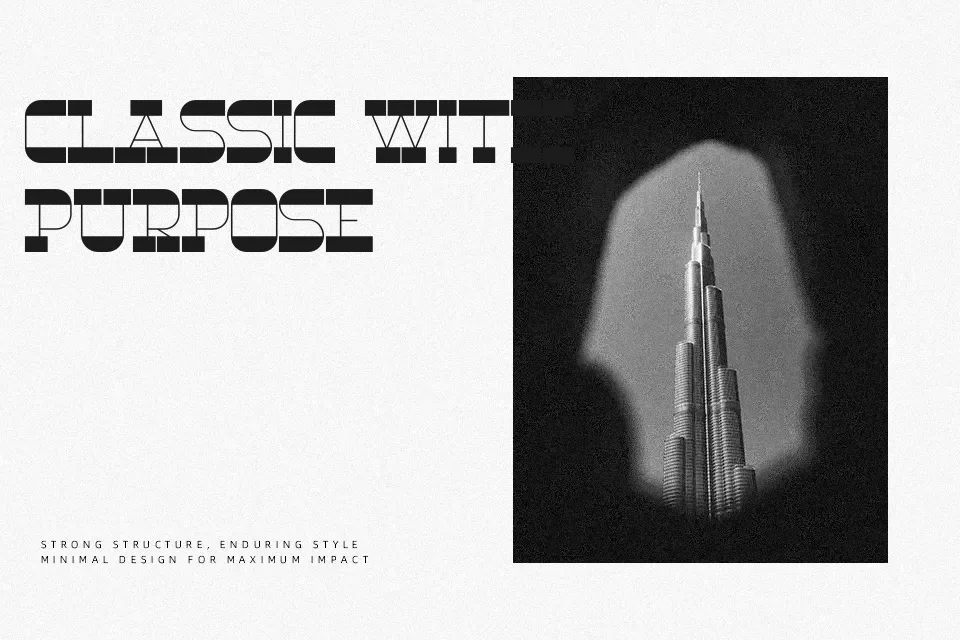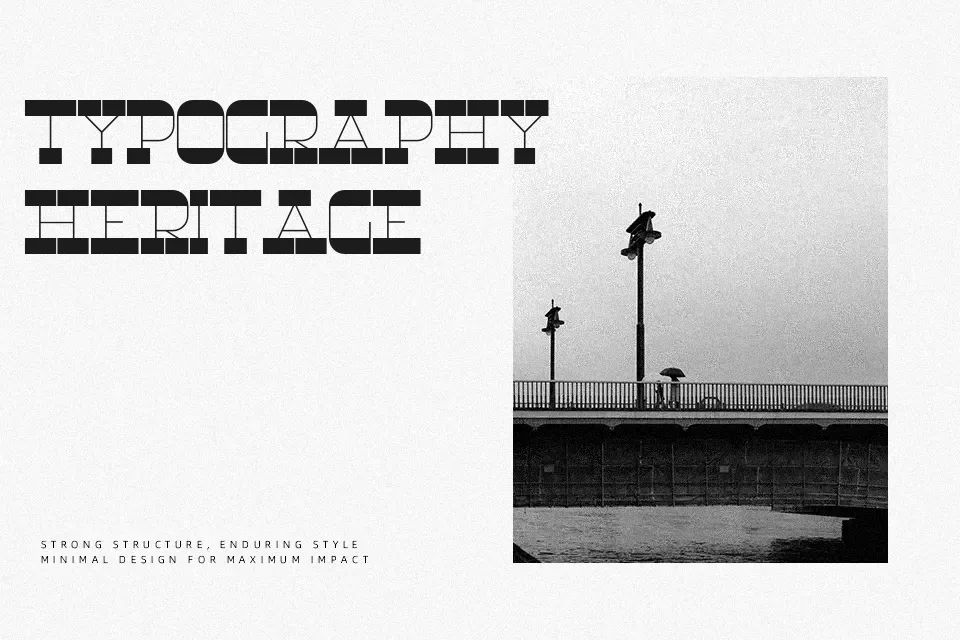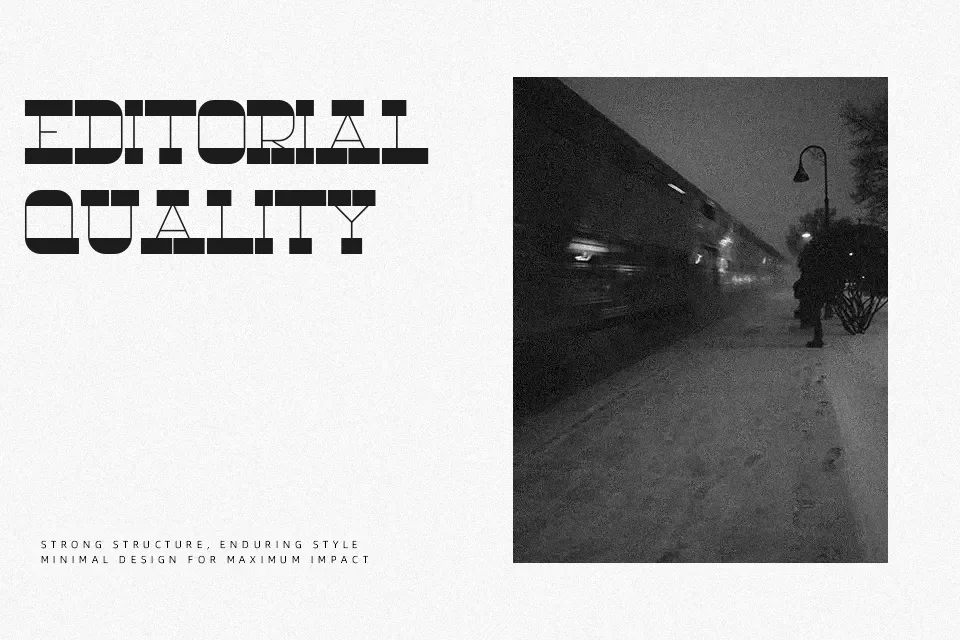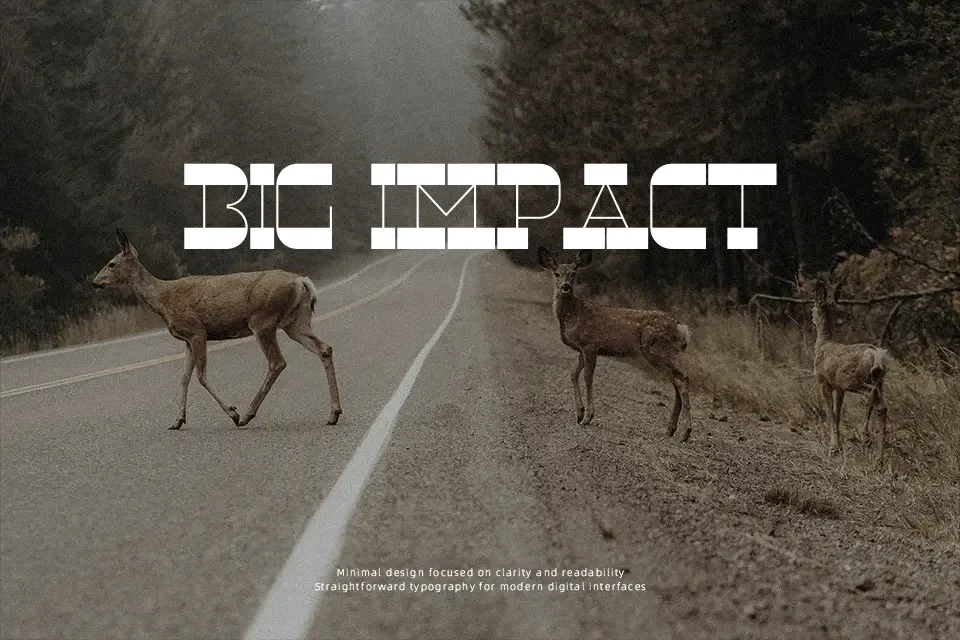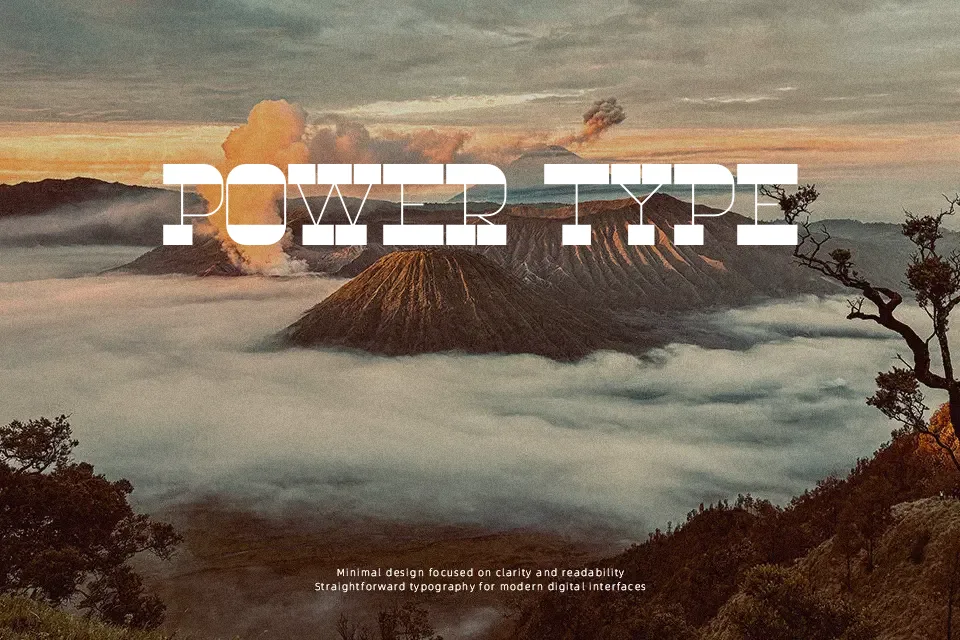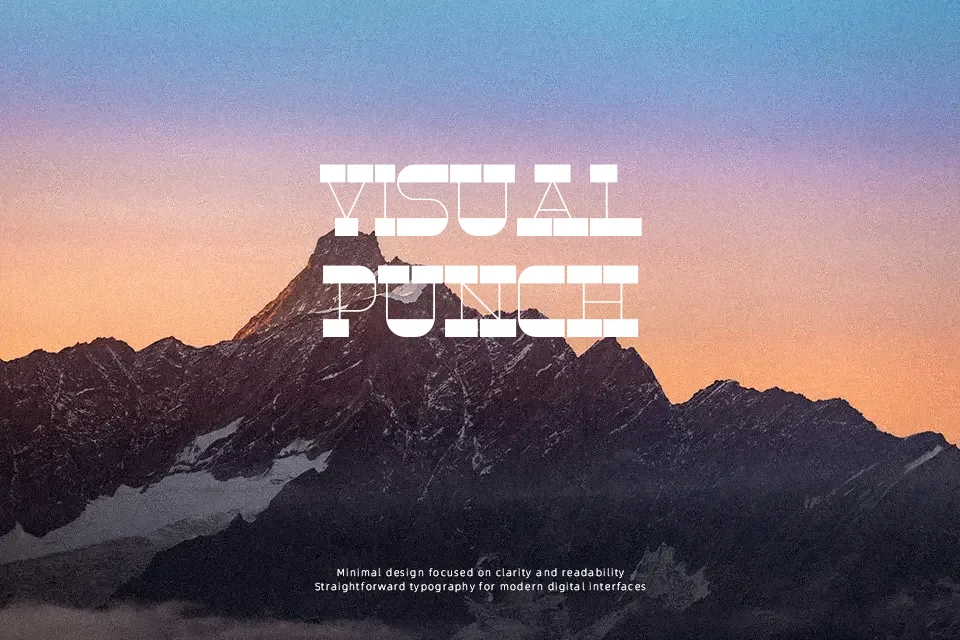
RNS Underwood Font
Designed by RNS
A short product label or poster headline benefits from the robust, structural presence of RNS Underwood Font. This typeface features heavy strokes and pronounced slab serifs that immediately evoke traditional wood type and classic western signage. The character proportions are slightly condensed, allowing for tight, impactful headlines without sacrificing legibility at large scales. Because the spacing is relatively compact and the letterforms carry significant visual weight, the typography maintains a strong, grounded rhythm. These bold forms perform beautifully for vintage apparel, rustic coffee shop branding, and festival posters. However, the dense forms reduce comfort during extended reading, making this design less suitable for continuous body text or small interface elements where delicate legibility is required.
Best For: vintage product packaging, western themed posters, rustic apparel graphics, bold headline displays
Not Ideal For: long paragraph text, small interface labels, dense editorial layouts
Perfect for branding, headline, and packaging, with a bold and decorative style.